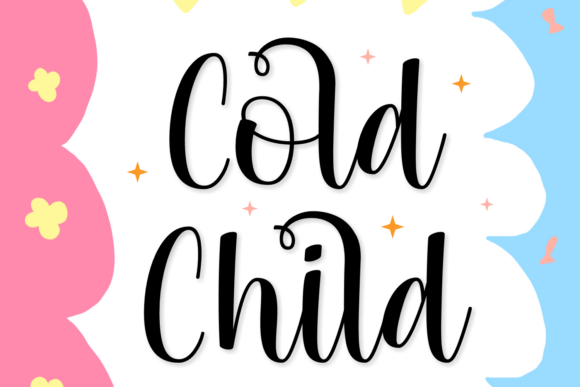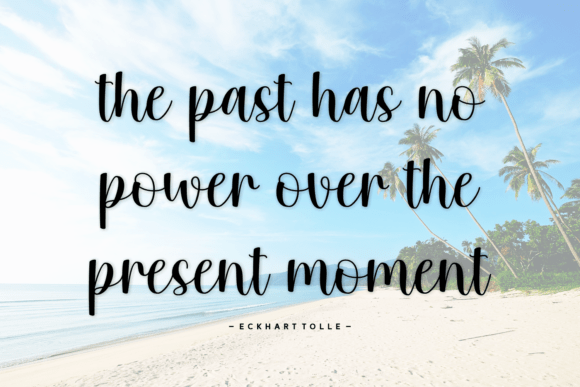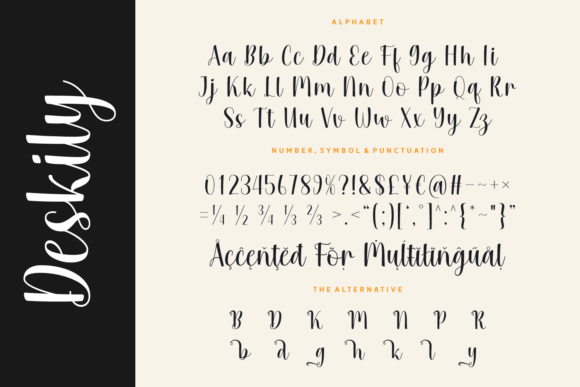
The Joy of Deskily Font: A Designer’s New Best Friend
I still remember the day I stumbled upon the perfect font for a client’s greeting card project. I had been searching for what felt like hours, trying out font after font, but nothing seemed quite right. That was until I discovered Deskily Font. With its cheerful, handwritten script and bold strokes, it was love at first sight. In this article, I’ll share my experience with Deskily Font, its features, and how to make the most of it in your designs.
An Honest Review of Deskily Font
- ✨ Unique and cheerful handwritten script style
- ✅ Bold strokes and looping swashes add a touch of elegance
- 🎉 Perfect for greeting cards, children’s content, product labels, and handmade branding
- 👍 Highly legible, even at smaller font sizes
While Deskily Font is an amazing addition to any design project, there are a few things to keep in mind:
- ⚠️ Some users may find the bold strokes a bit overpowering for certain designs
- 🤔 Limited availability of certain OpenType features in certain software
- Experiment with OpenType features like swashes and stylistic alternates to add some flair to your design
The Story Behind Deskily Font
Deskily Font was designed with the intention of bringing warmth and charm to everyday designs. Its creator, a talented type designer, was inspired by traditional handwritten scripts and the joy of creating something beautiful by hand. The result is a font that’s both playful and elegant, perfect for a wide range of design projects.
Q: What type of projects is Deskily Font best suited for?
A: Deskily Font is perfect for greeting cards, children’s content, product labels, and handmade branding.
Q: Does Deskily Font support OpenType features?
A: Yes, Deskily Font supports OpenType features like swashes, stylistic alternates, and glyphs.